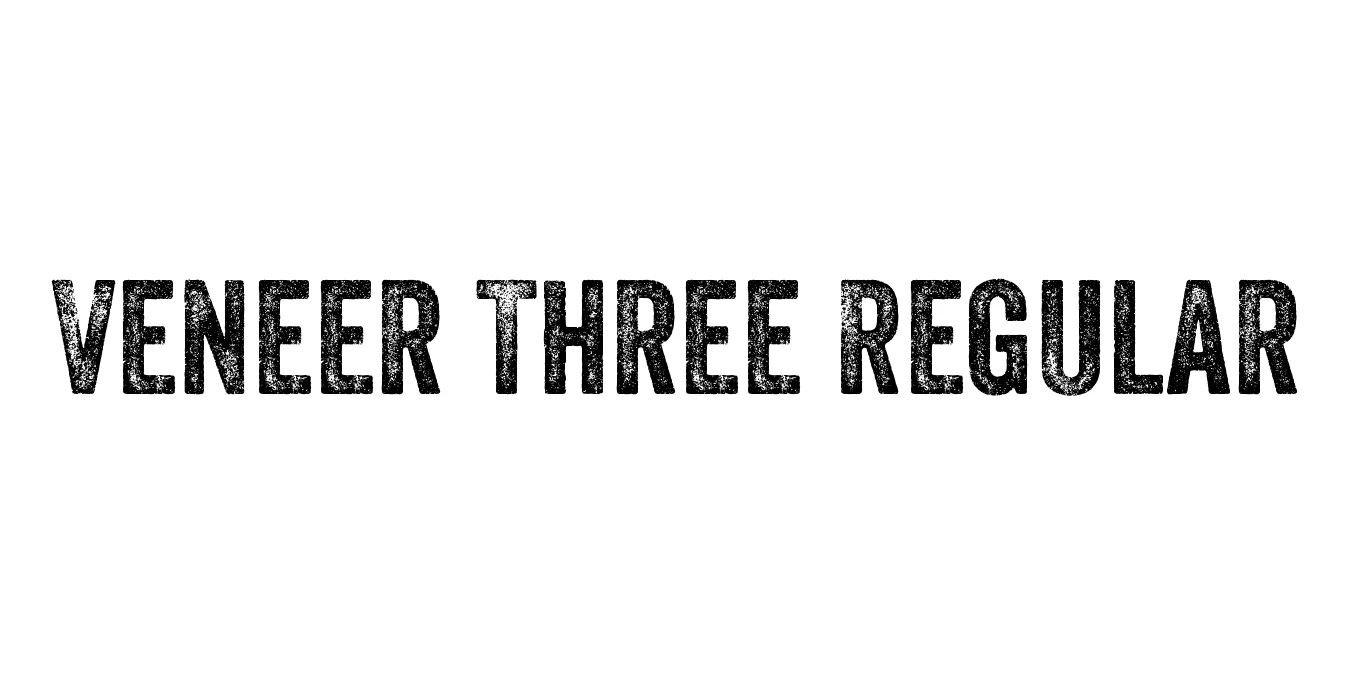
Veneer Three Regular
Designed by Ryan Martinson
| Category | Display / Distressed |
| Designer | Ryan Martinson |
Veneer Three Regular is a part of the highly acclaimed Veneer family created by Yellow Design Studio. It is a high-resolution, hand-crafted letterpress font that captures the authentic grit and imperfections of vintage printing. This specific weight, 'Three', provides a unique level of distressing that adds a tactile, weathered character to any typographic layout, making it a standout choice for designers seeking a realistic retro aesthetic.
Beyond its visual appeal, the font is meticulously engineered for high impact. Its rugged, blocky letterforms are ideal for bold display headings and branding elements that require a sense of history and craftsmanship. Whether used in digital media or print, Veneer Three Regular maintains its detailed texture, ensuring that your designs convey a powerful, artisanal message that resonates with audiences.
Veneer Three Regular Best Uses
Perfect for creating authentic, vintage-style logos and emblems.
Ideal for t-shirt prints and garment labels needing a weathered look.
High-impact display font for concert or event promotional materials.
Adds a rustic, artisanal feel to product boxes and labels.